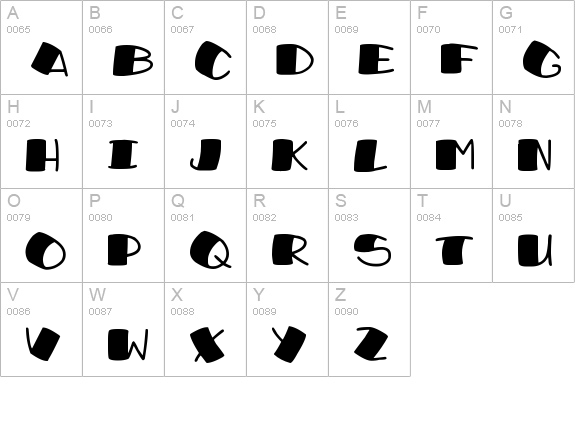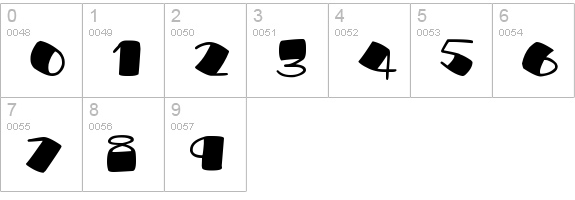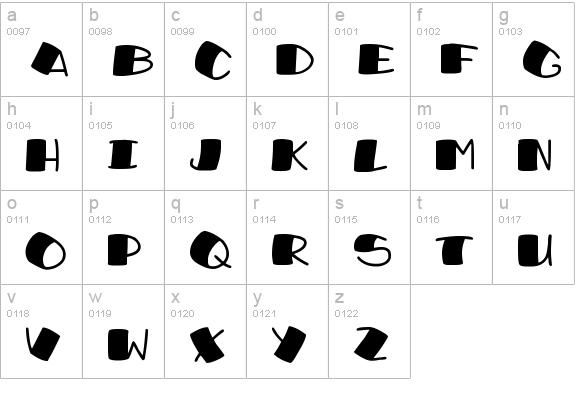
Sushi Roll Font Details
Sushi Roll is a free for personal use font in the Fancy > Comic category, designed by Darrell Flood. It has been downloaded 50 times and is available for Windows, Mac and Linux.
Sushi Roll font is a delightful and playful typeface that captures the essence of sushi with its quirky and fun design. Each letter is uniquely crafted to resemble a piece of sushi, complete with intricate details and a touch of whimsy. The Sushi Roll font is perfect for adding a touch of creativity to your designs, whether you're working on a menu for a Japanese restaurant or creating fun branding for a food-related project.